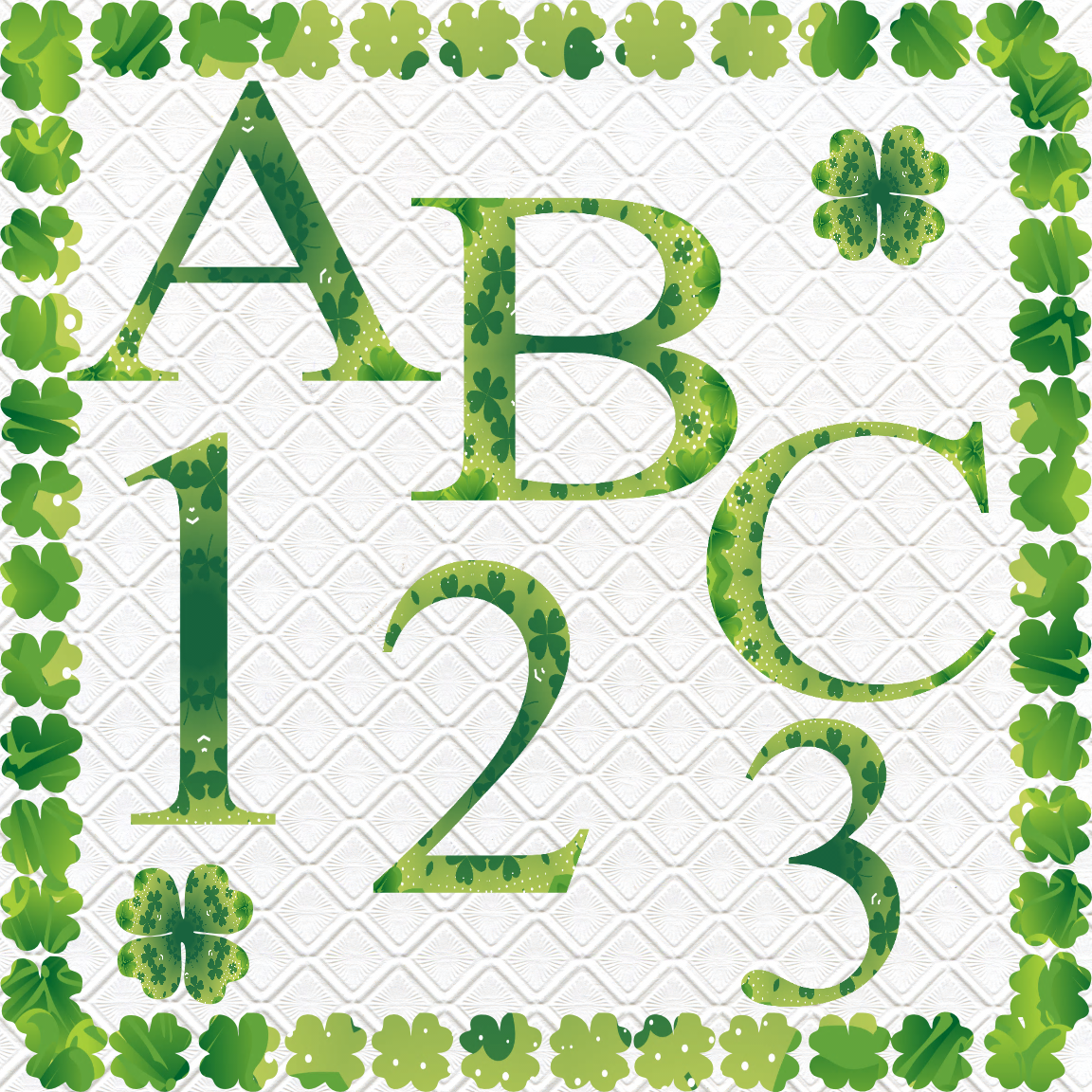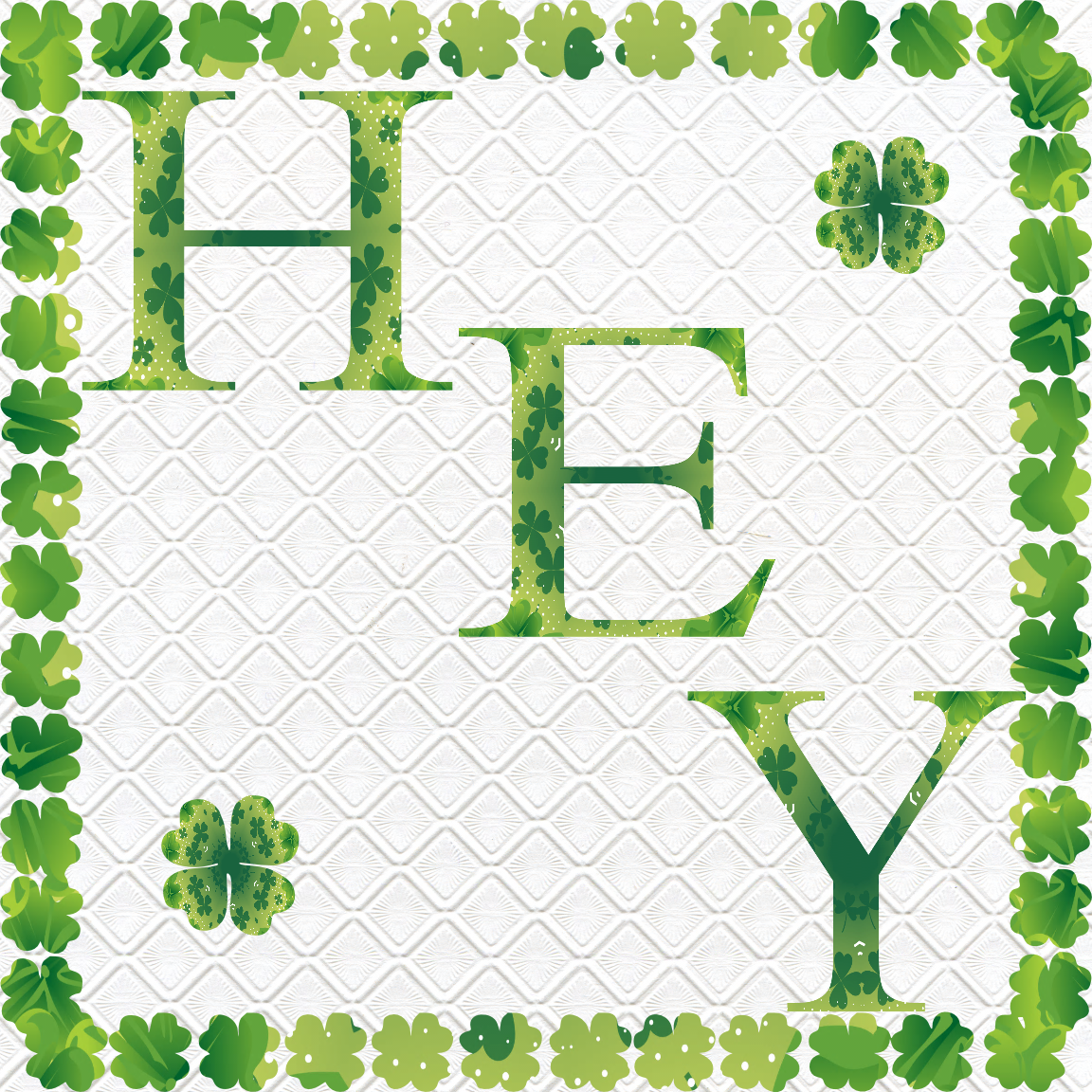
ABC and 123 44a-Digital ClipArt-Font-Clover-Gift Tag-Holiday-Scrapbook-Gift Card
ABC and Numbers 44a-Digital ClipArt-Fonts-Art Clip-Clover-Gift Tag-Notebook-Holiday-Scrapbook-Banner-Background-Gift Card. The files you receive are in formats with transparent backgrounds. Clipart is great for creating invitations, birth announcements, baby showers, business cards, web designs, greeting cards, party printables, tags and so much more!